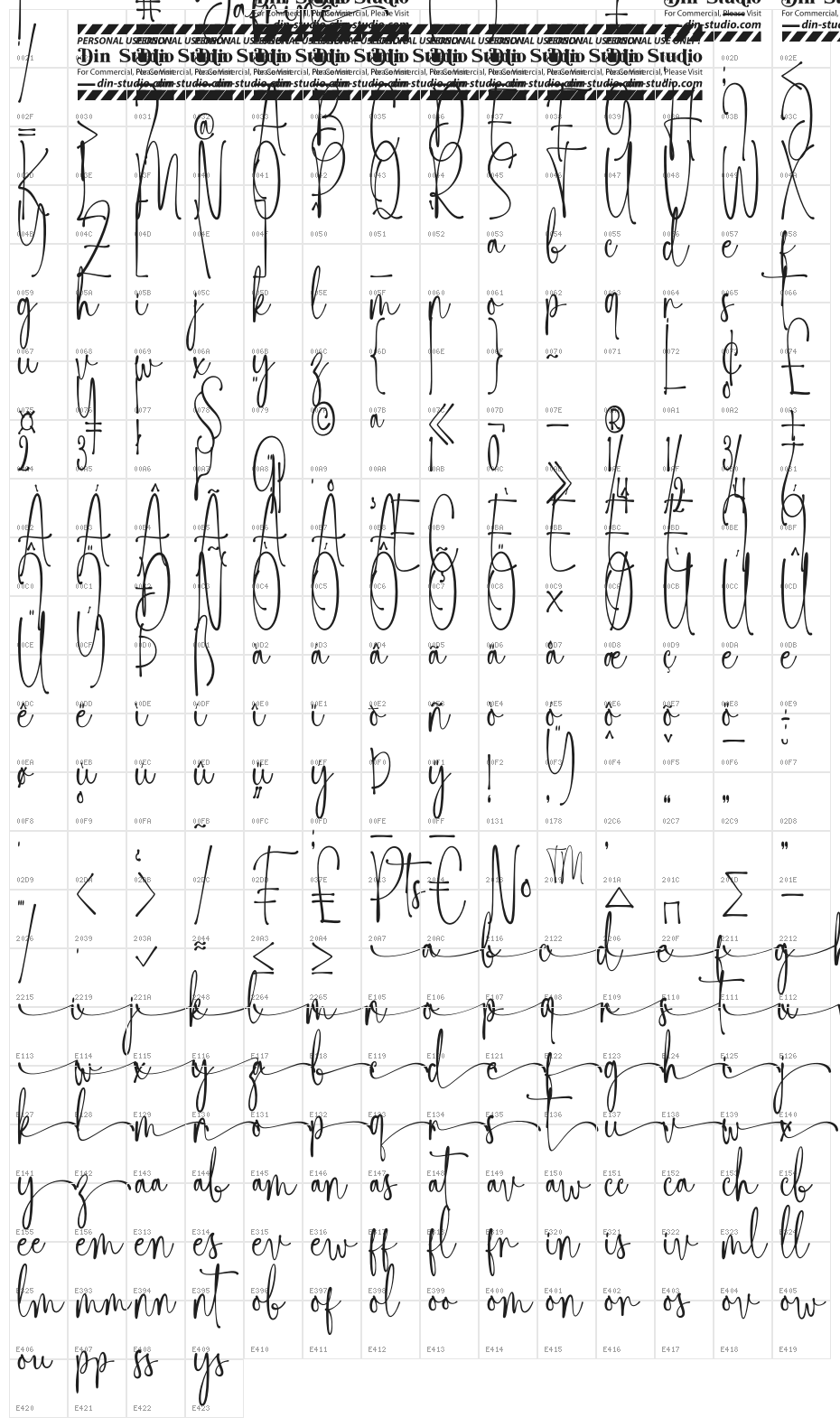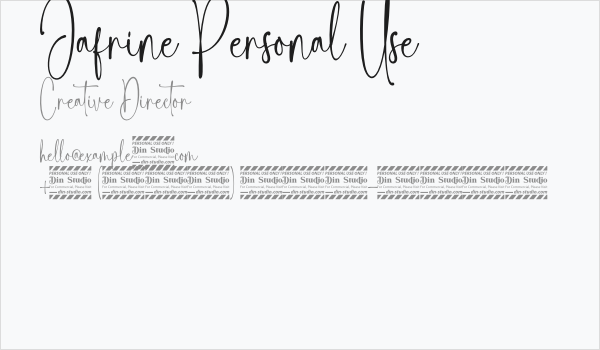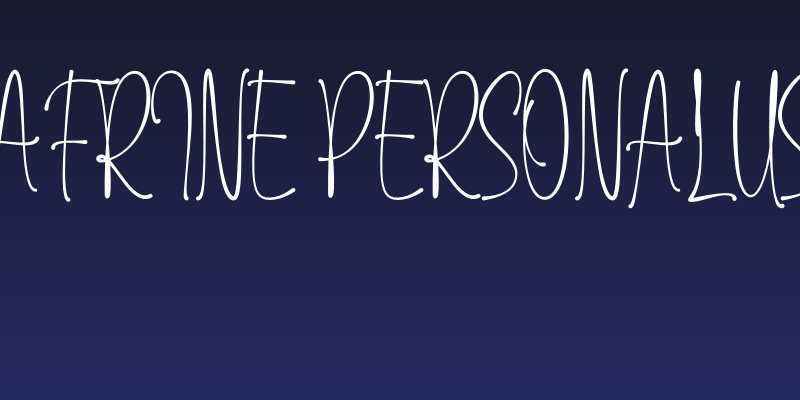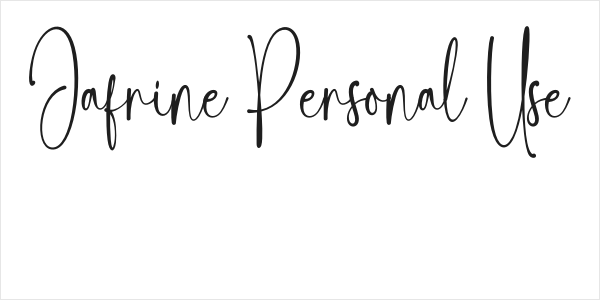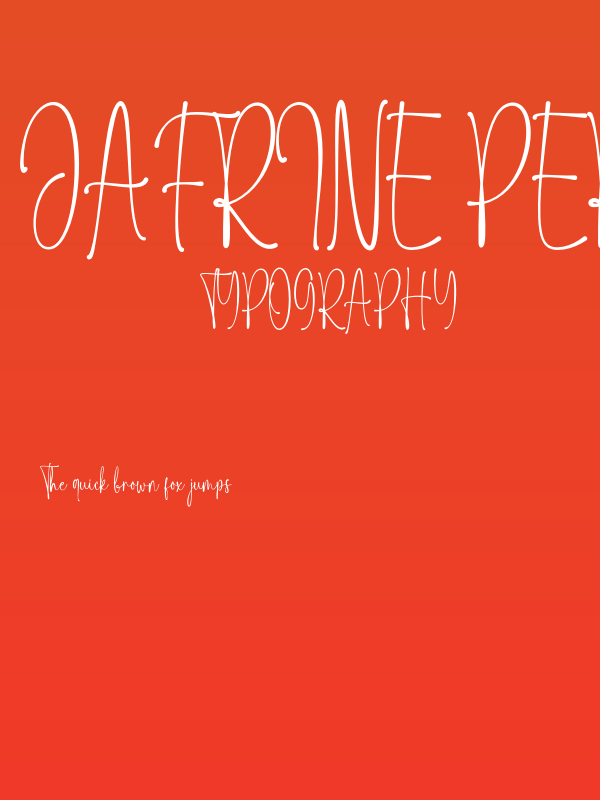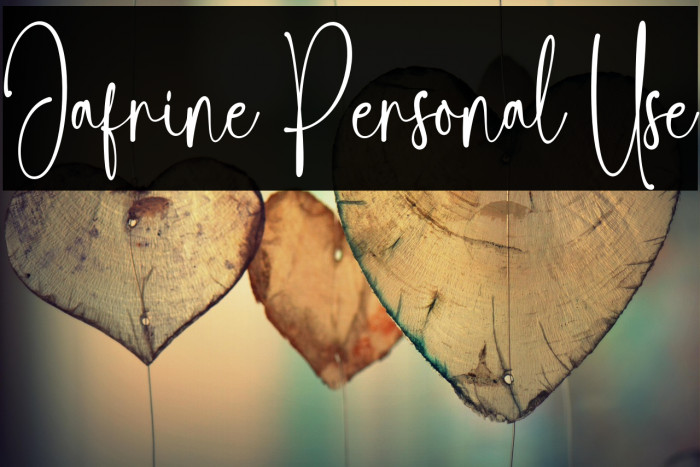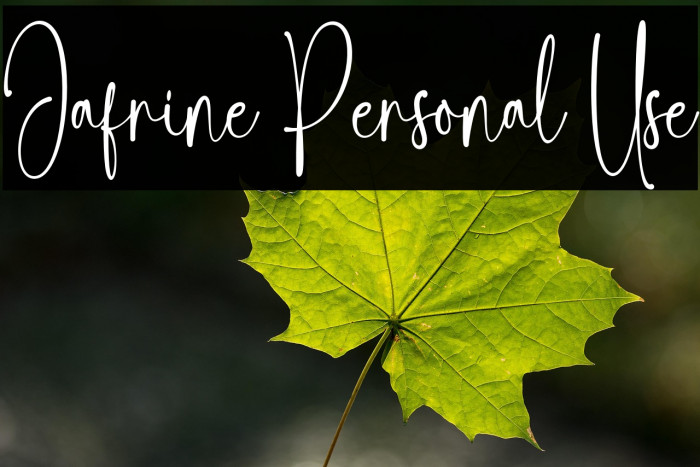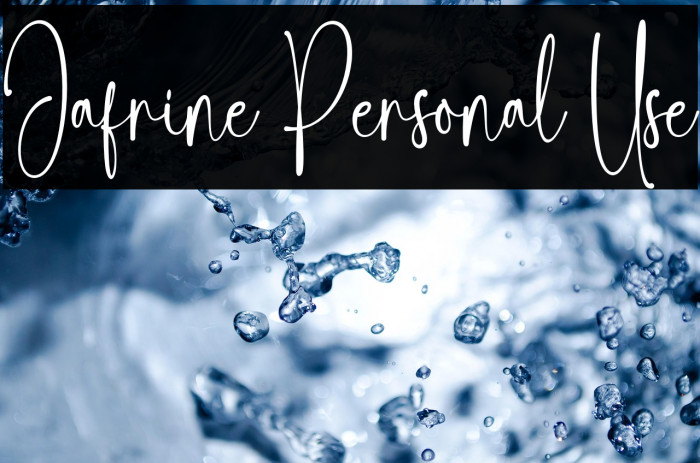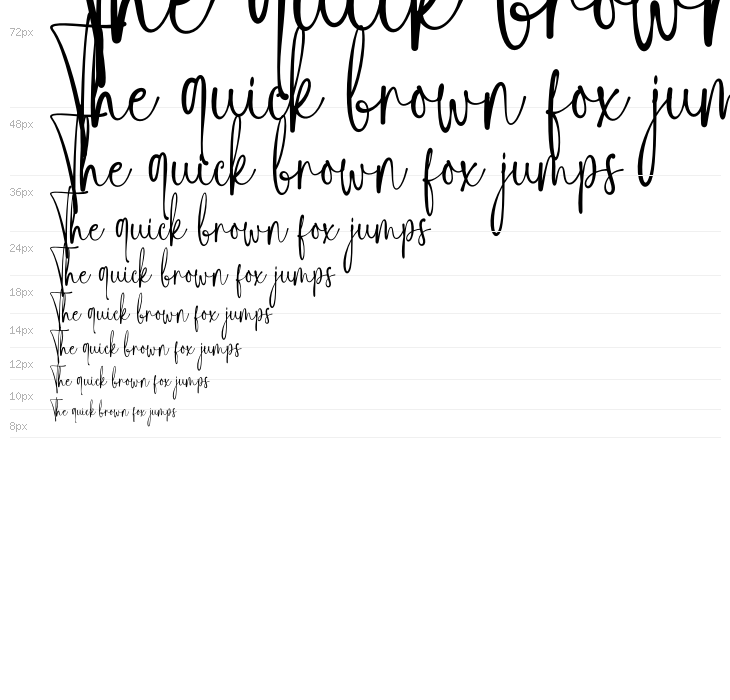
Jafrine Personal Use Font
Jafrine Personal Use Description
This font features a distinctive handwritten style with a playful and artistic flair. The uppercase letters are tall and narrow, with a whimsical touch that adds a sense of movement and fluidity. The lowercase letters are more flowing, with elegant loops and curves that give a personal and informal feel. The overall design is cohesive, with a consistent stroke width that maintains readability while offering a unique aesthetic. The special characters complement the alphabet with similar stylistic elements, making this font versatile for creative projects.